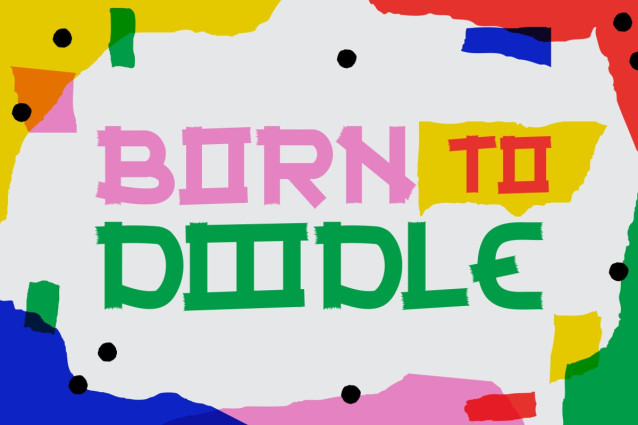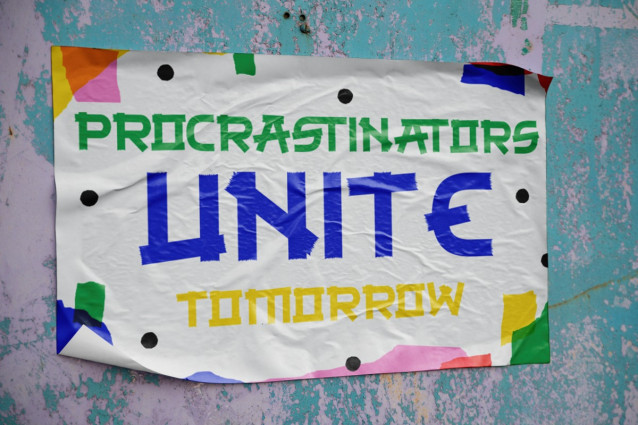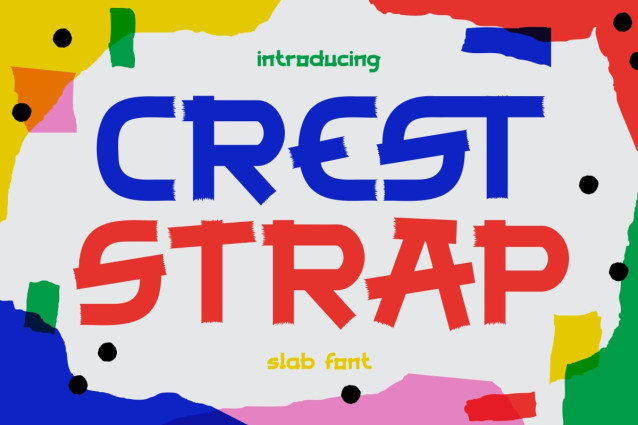
Crest Strap Font
Crest Strap Font is a vibrant slab font designed to bring humor and expressive flair into your creative toolbox. With its jagged strap-like slashes through the letterforms, Crest Strap injects a hand-cut energy that feels fresh, rebellious, and dynamic. The character set includes uppercase, lowercase, numerals, and punctuation, all infused with bold contrast and exaggerated forms. Combined with an array of bright color applications, this font explodes with a comic-book attitude, making it perfect for posters, packaging, and anything that craves attention. Its geometric slab foundation is balanced with irregular slices, giving each glyph a handcrafted street-style edge.
Crest Strap thrives in projects where fun meets visual power — from youth branding to artistic campaigns, merchandise, bold editorial spreads, and quirky invitations. The font’s high-impact display characteristics make it ideal for logos, sticker designs, and children’s book covers. It embraces playful chaos while maintaining clarity and visual rhythm. Crest Strap doesn’t just communicate — it shouts, laughs, and entertains. Elevate your visuals with this expressive font and unleash design that doesn’t take itself too seriously.